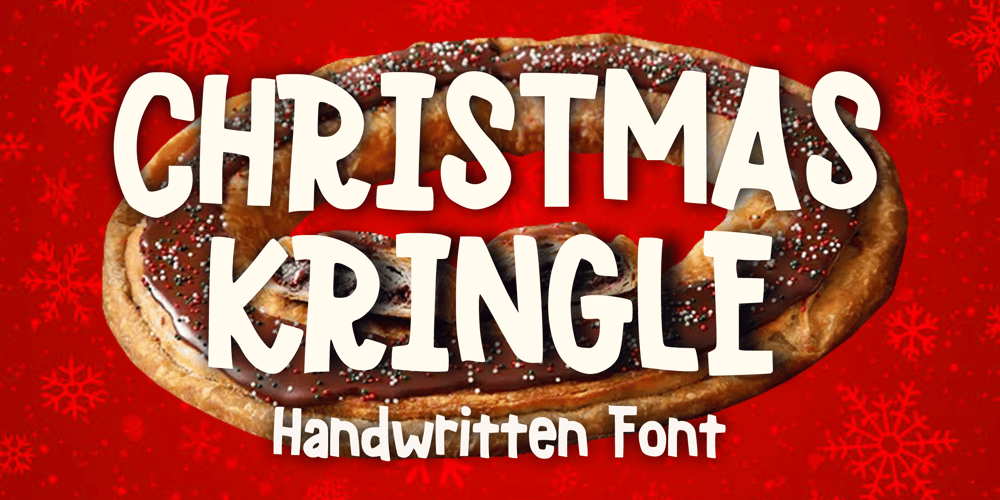
Christmas Kringle Font Family was designed by Gabriel Valentinus and published by Mvmet. Christmas Kringle contains 1 styles and family package options. Christmas Kringle is a fun and festive Christmas display font. You can use it for anything ranging from t-shirts, book designs, and greeting cards to stickers and posters, or anything that needs a casual touch. Fall in love with its incredibly versatile style, and use it to create lovely designs!